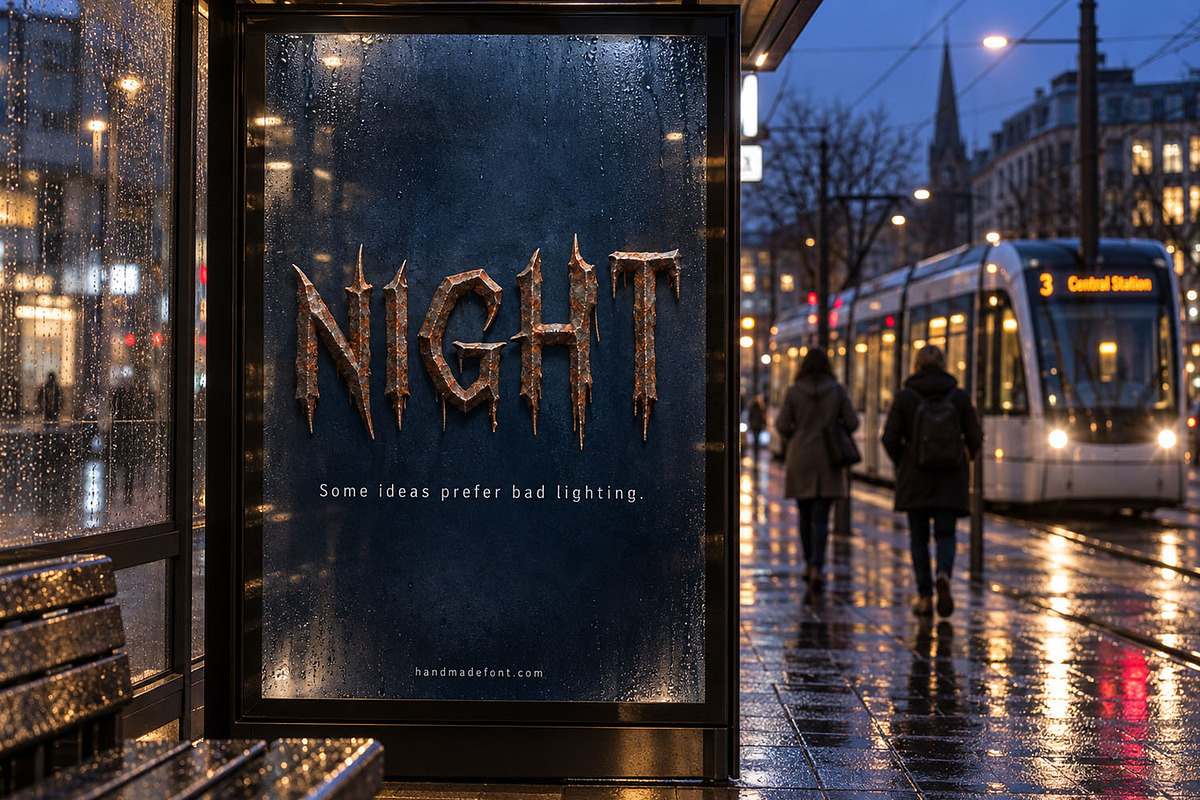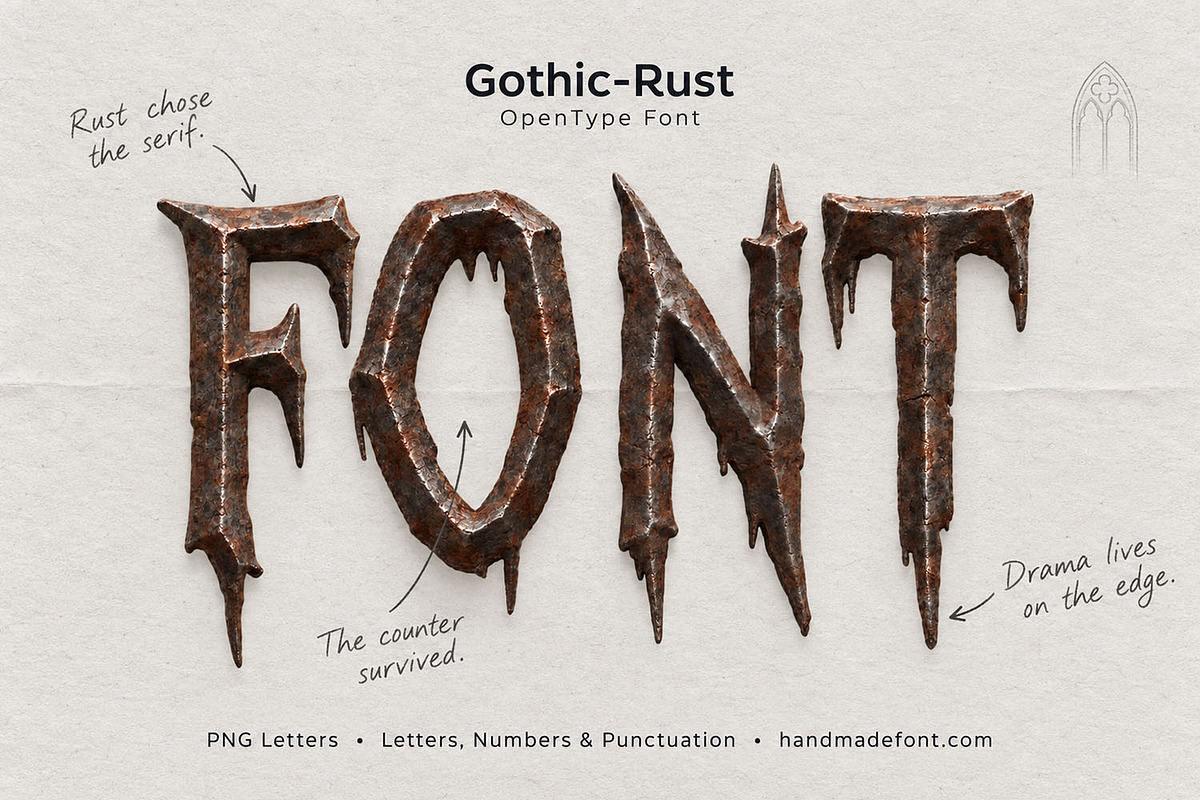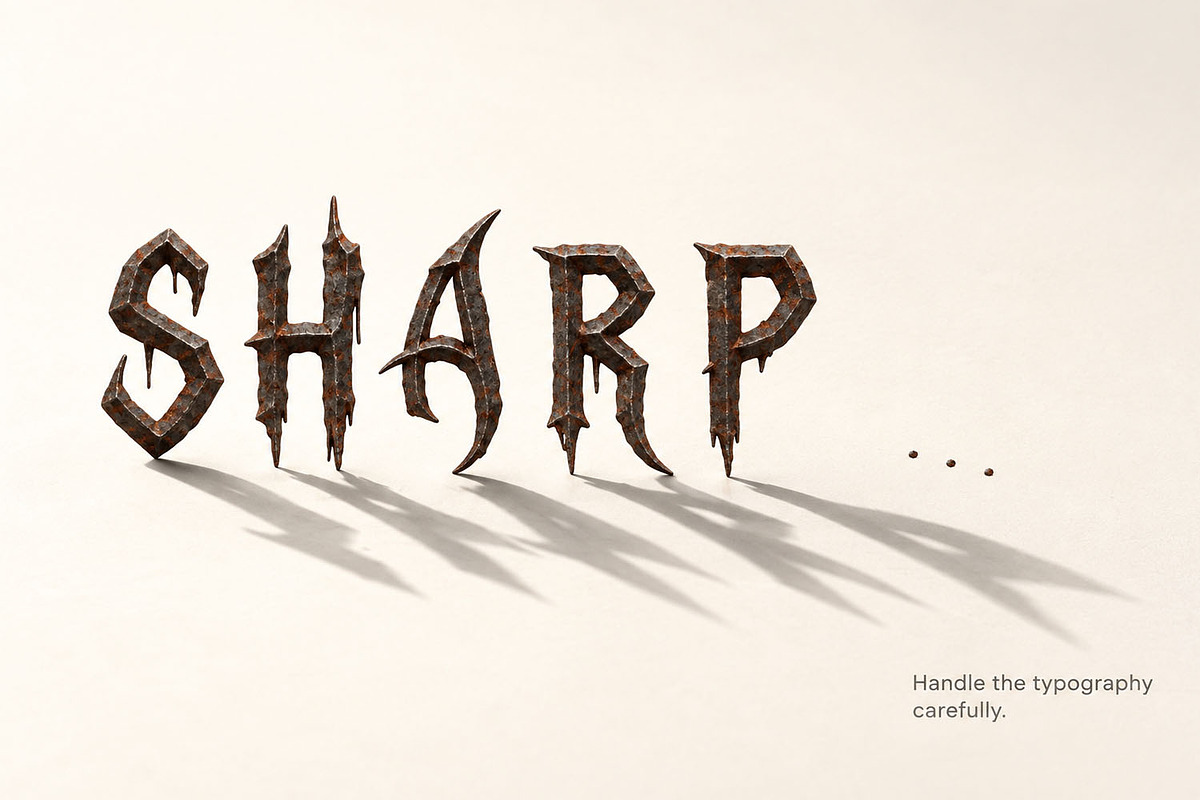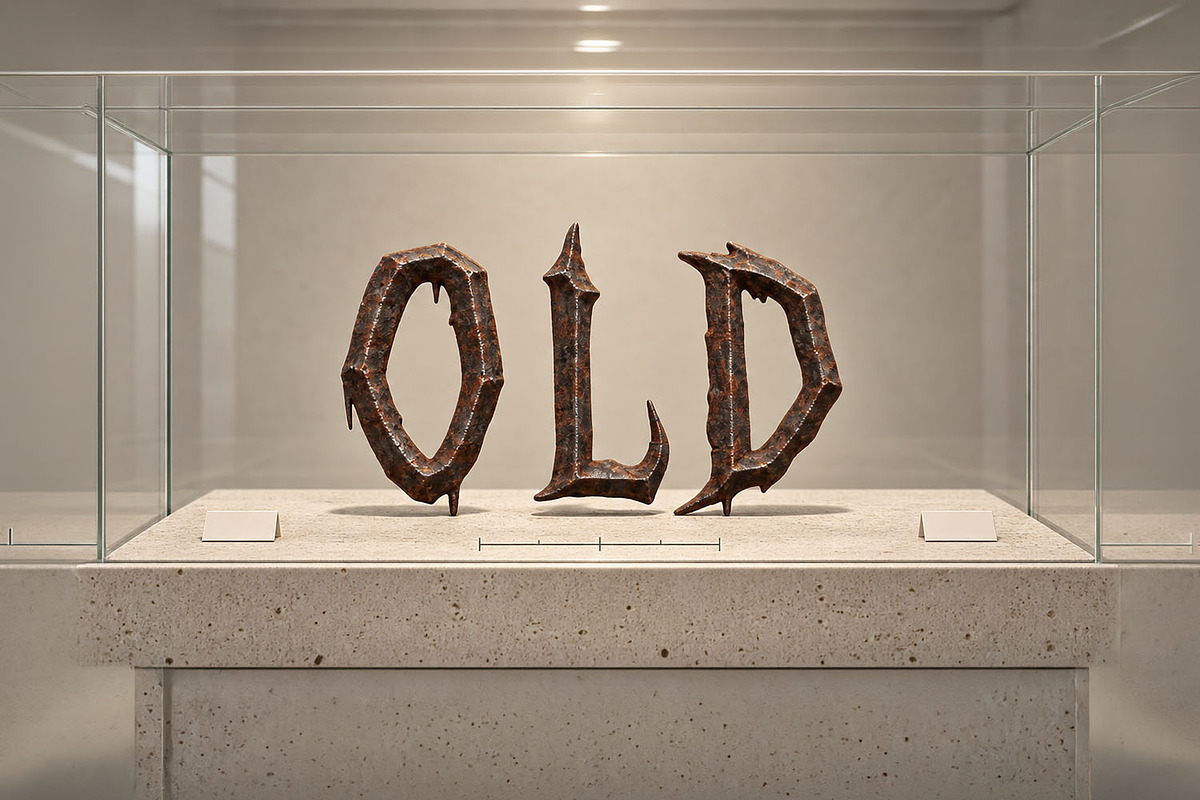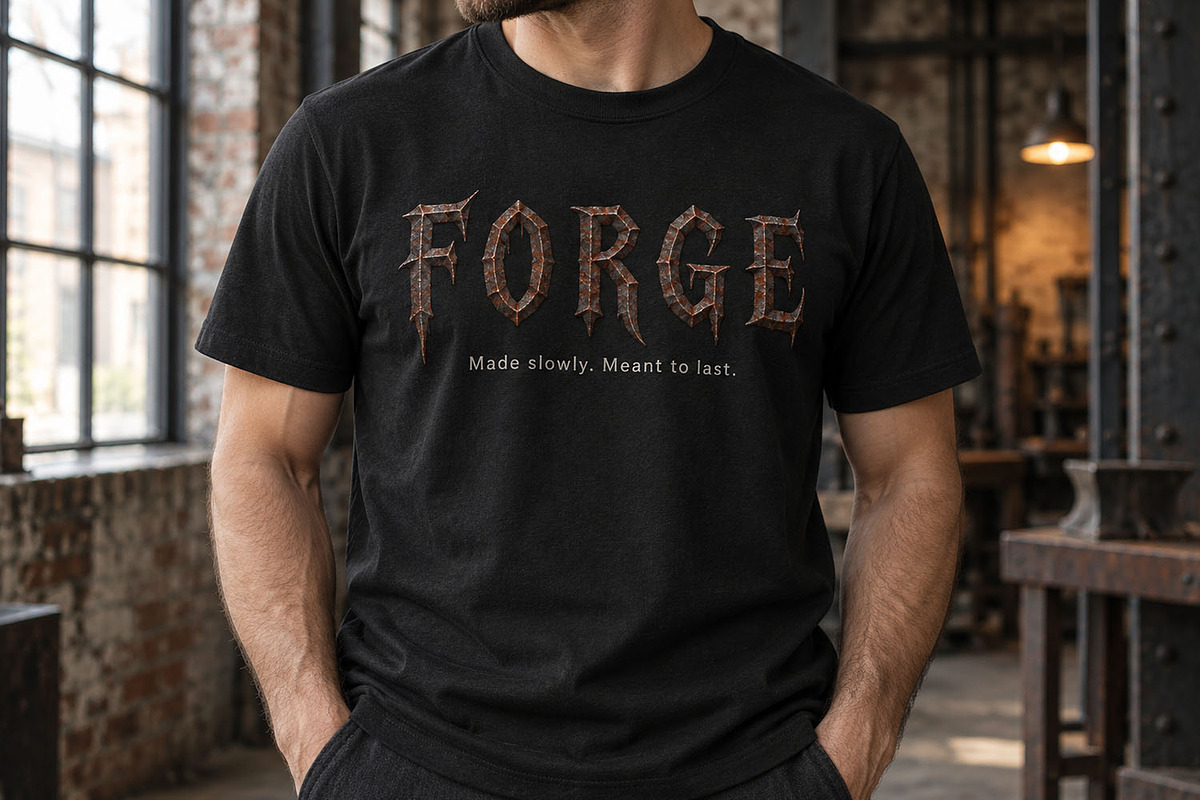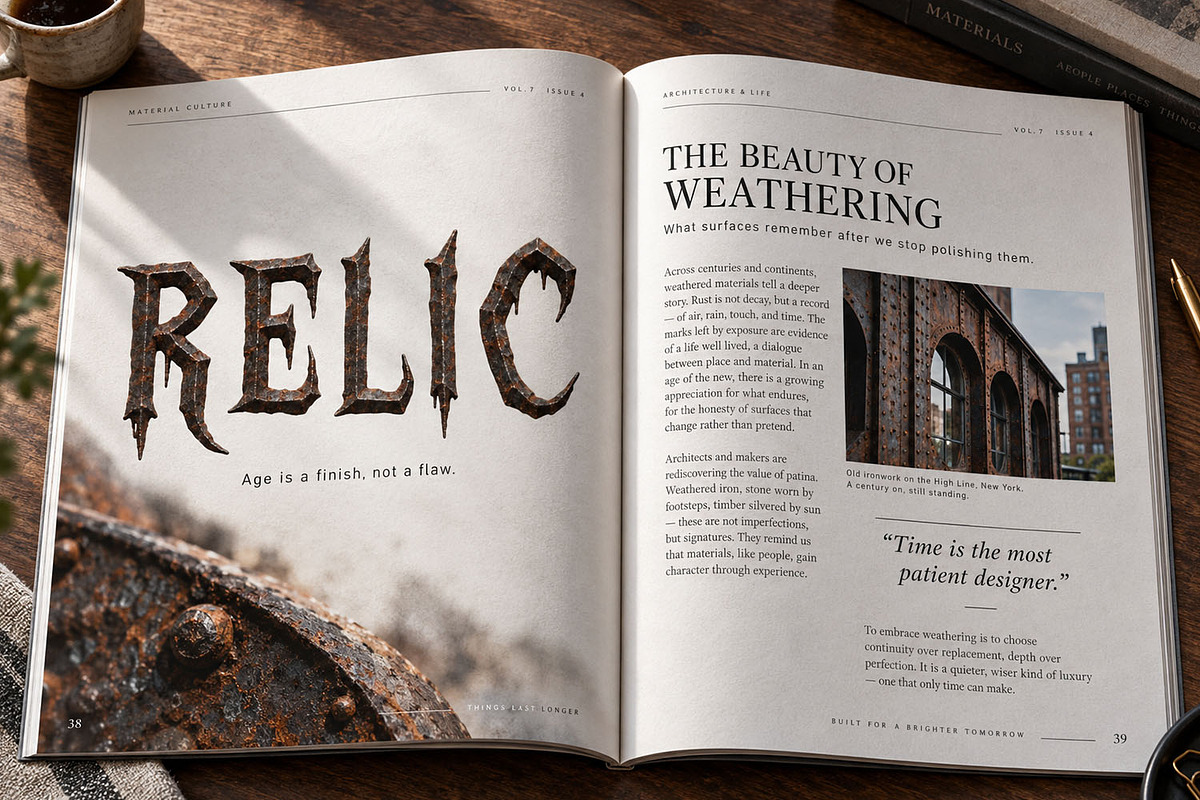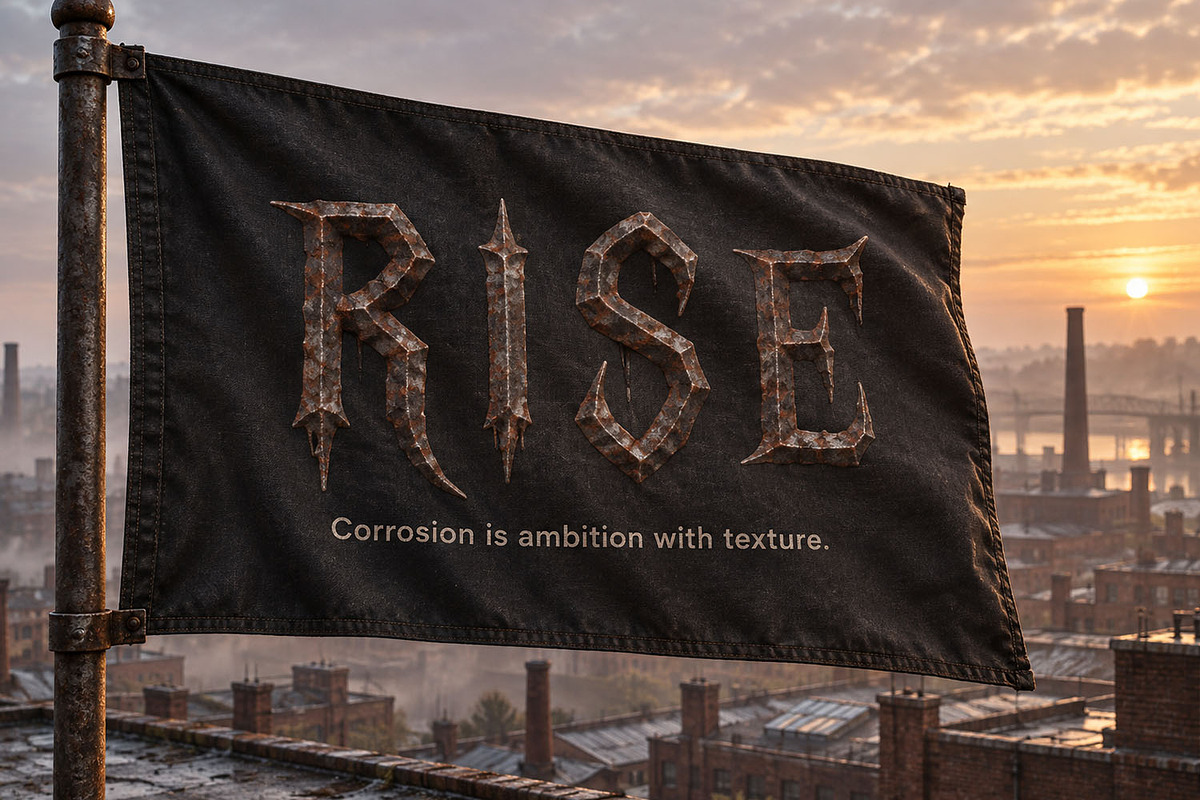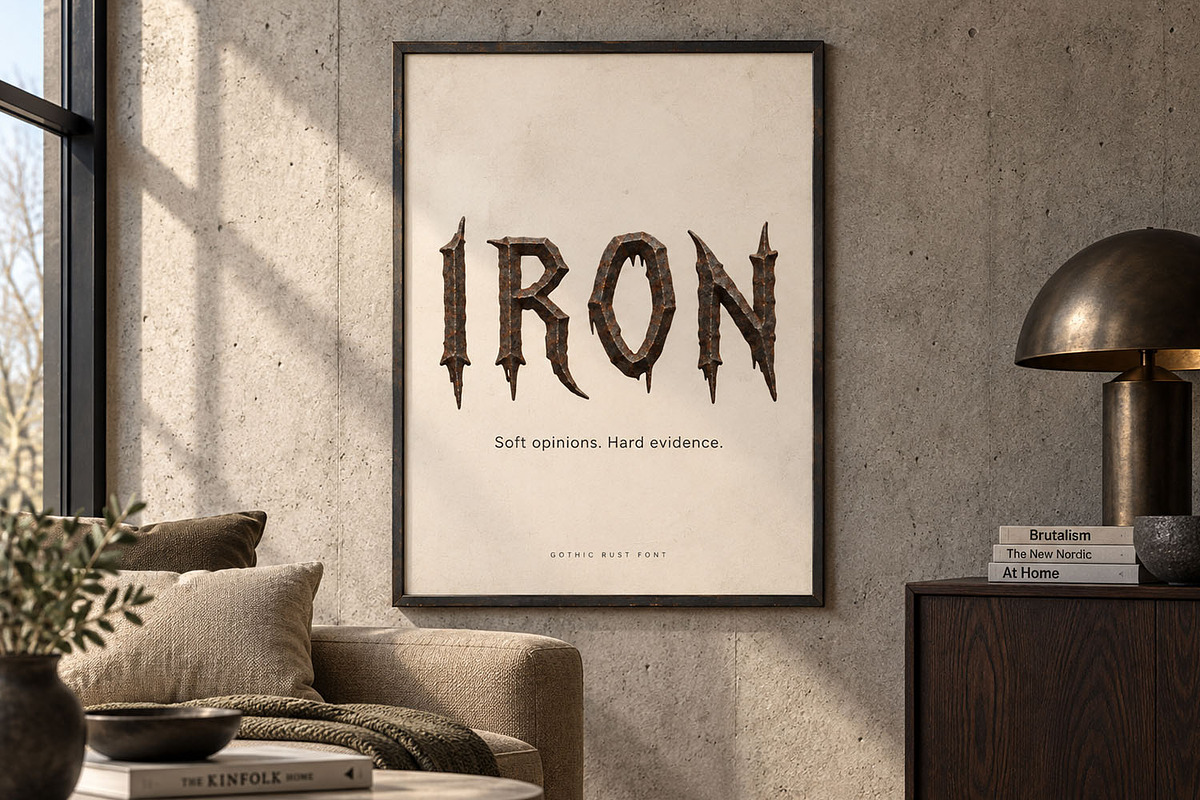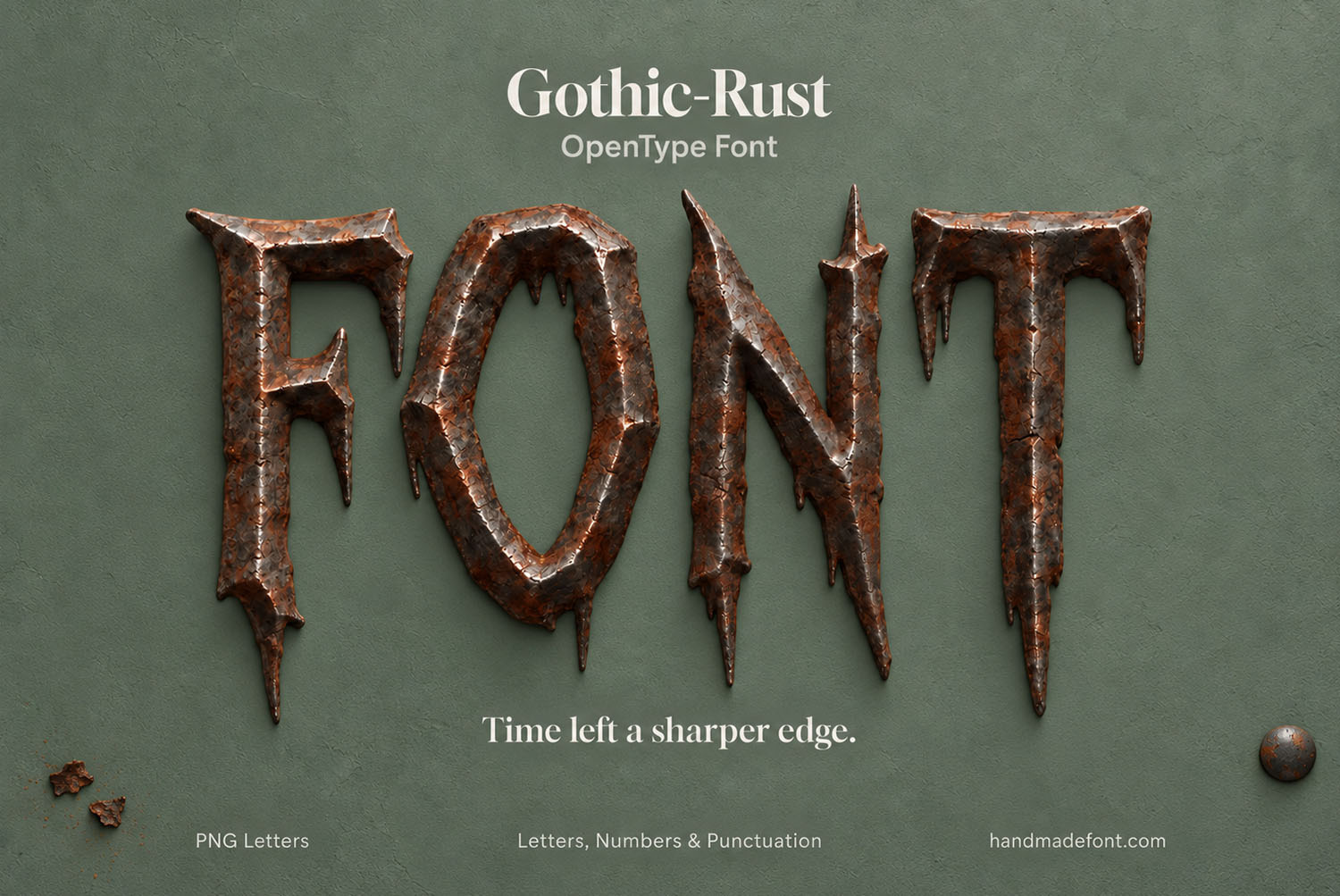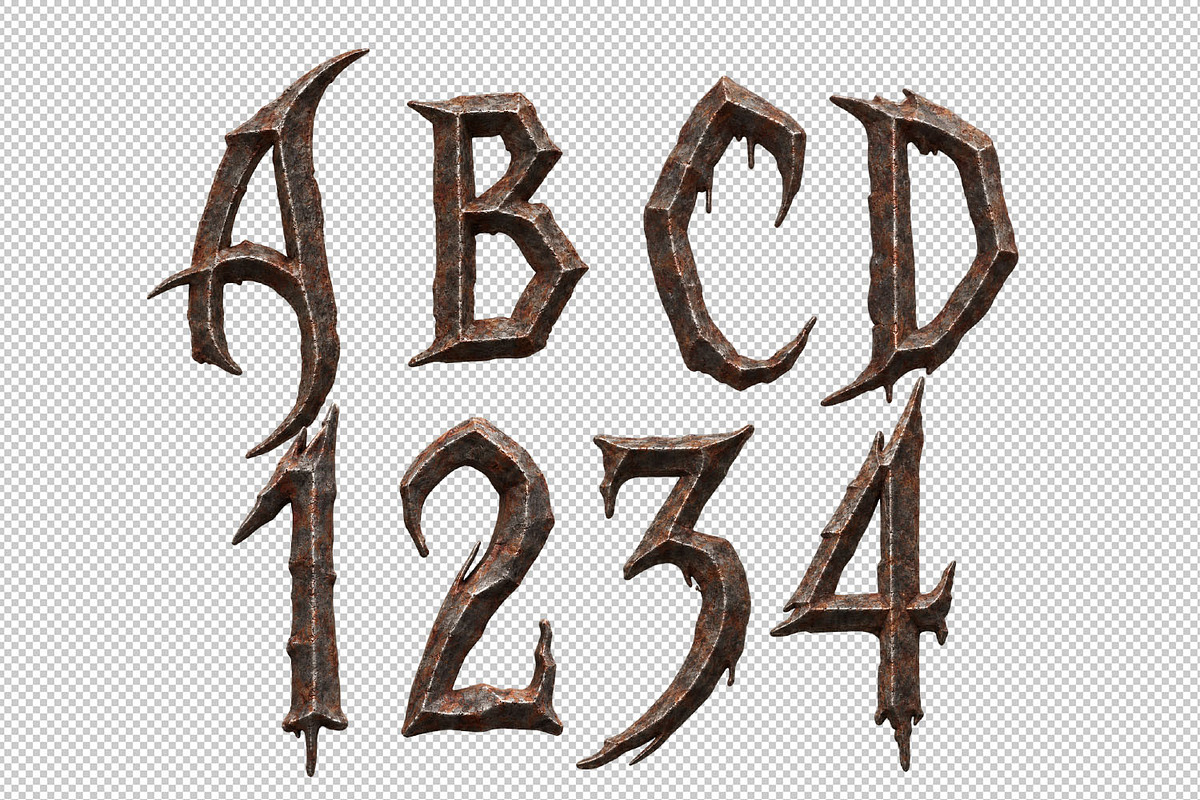
Gothic Rust Font
Gothic Rust Font is a dramatic display typeface forged from corroded metal, sharp medieval forms, and dark industrial character. Every letter features jagged contours, pointed serifs, weathered surfaces, and rich rusty details that bring powerful texture to headlines, posters, album covers, games, branding, and horror projects. The package includes an easy-to-install OTF font for convenient typing, plus every character supplied separately as a high-resolution PNG file with a transparent background. Use the PNG letters to create dimensional compositions, atmospheric titles, and realistic metallic artwork. Gothic Rust Font gives any design a bold, ancient, rebellious, and unforgettable visual voice with impact.
Letters : ABCDEFGHIJKLMNOPQRSTUVWXYZÄËÏÖÜŸÁÉÍÓÚÝÀÈÌÒÙÂÊÎĚŇÔÛÃÑÕÅÇČŠŽŘ
Numbers : 0 1 2 3 4 5 6 7 8 9
Others : ! ? - . ' $ € % & # @